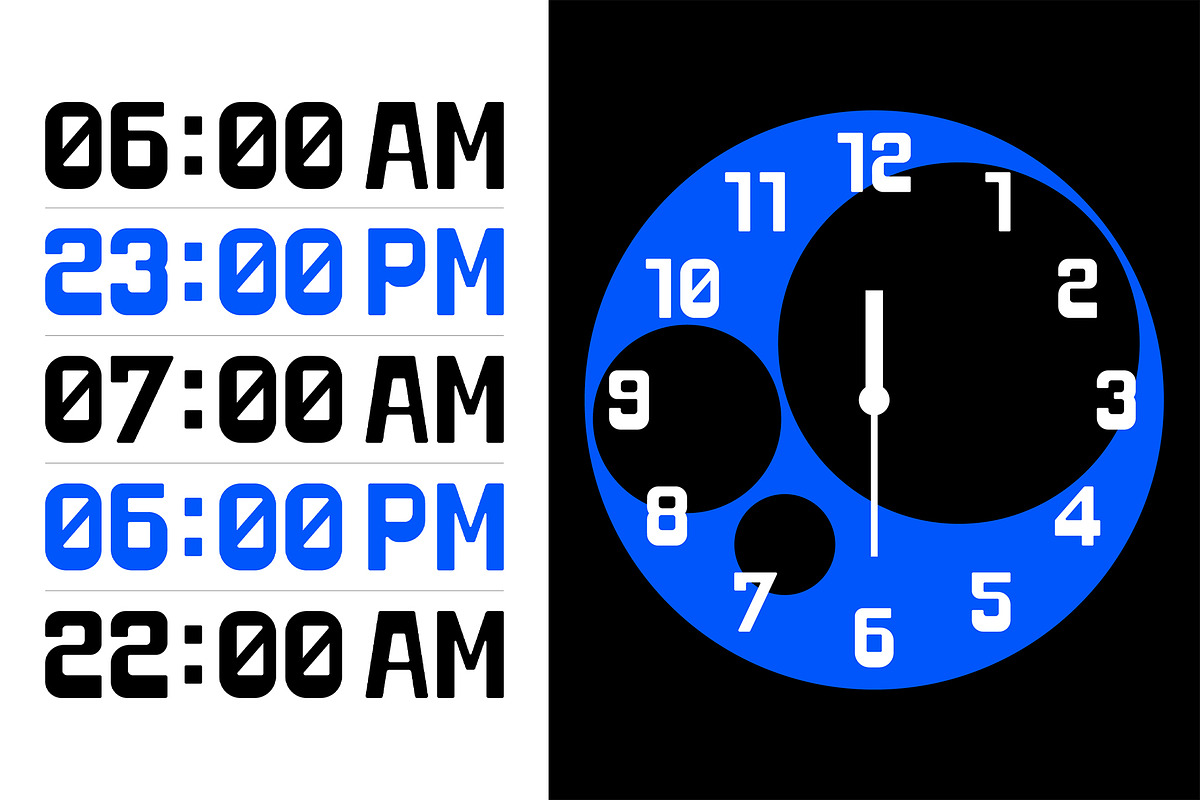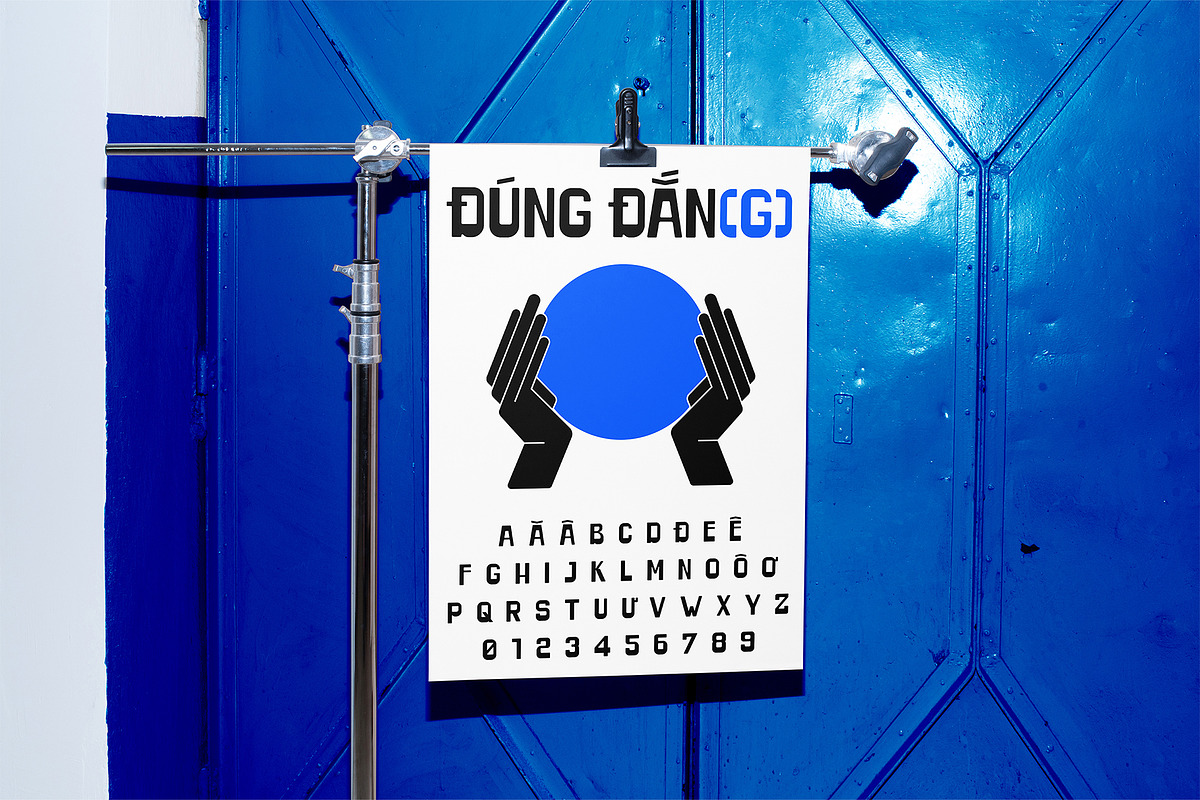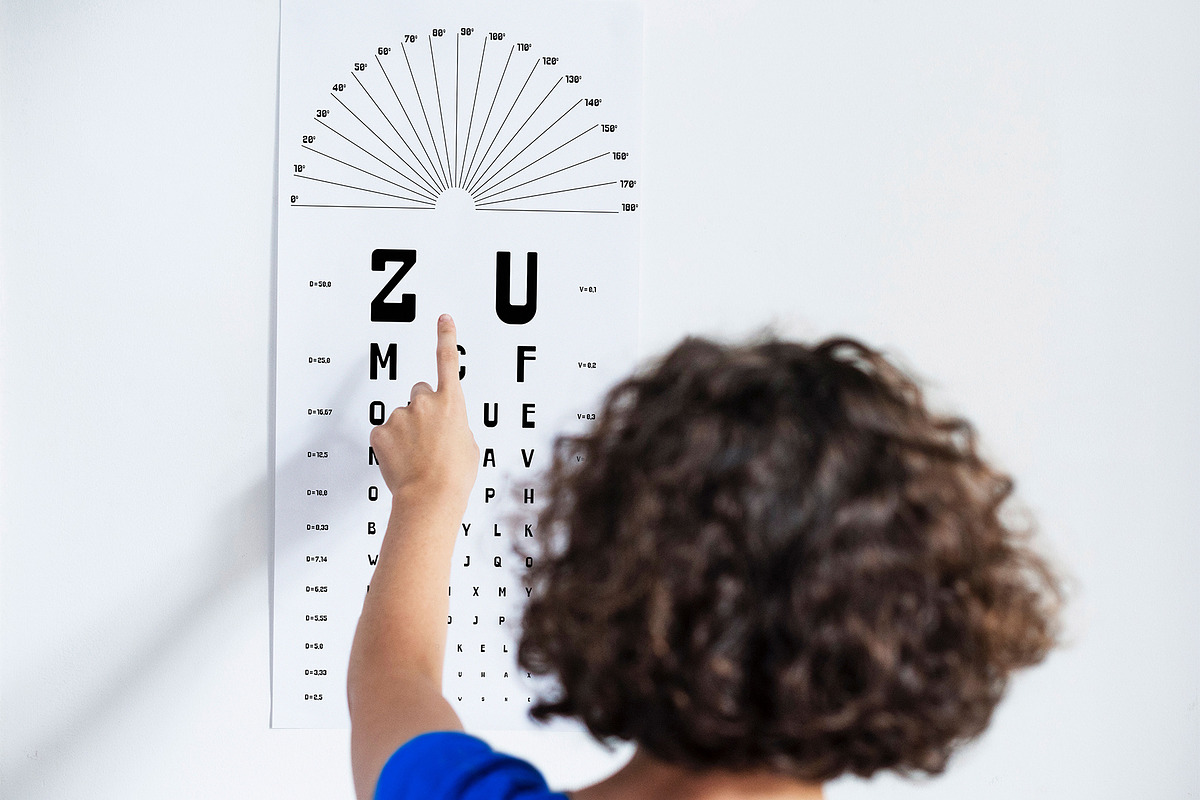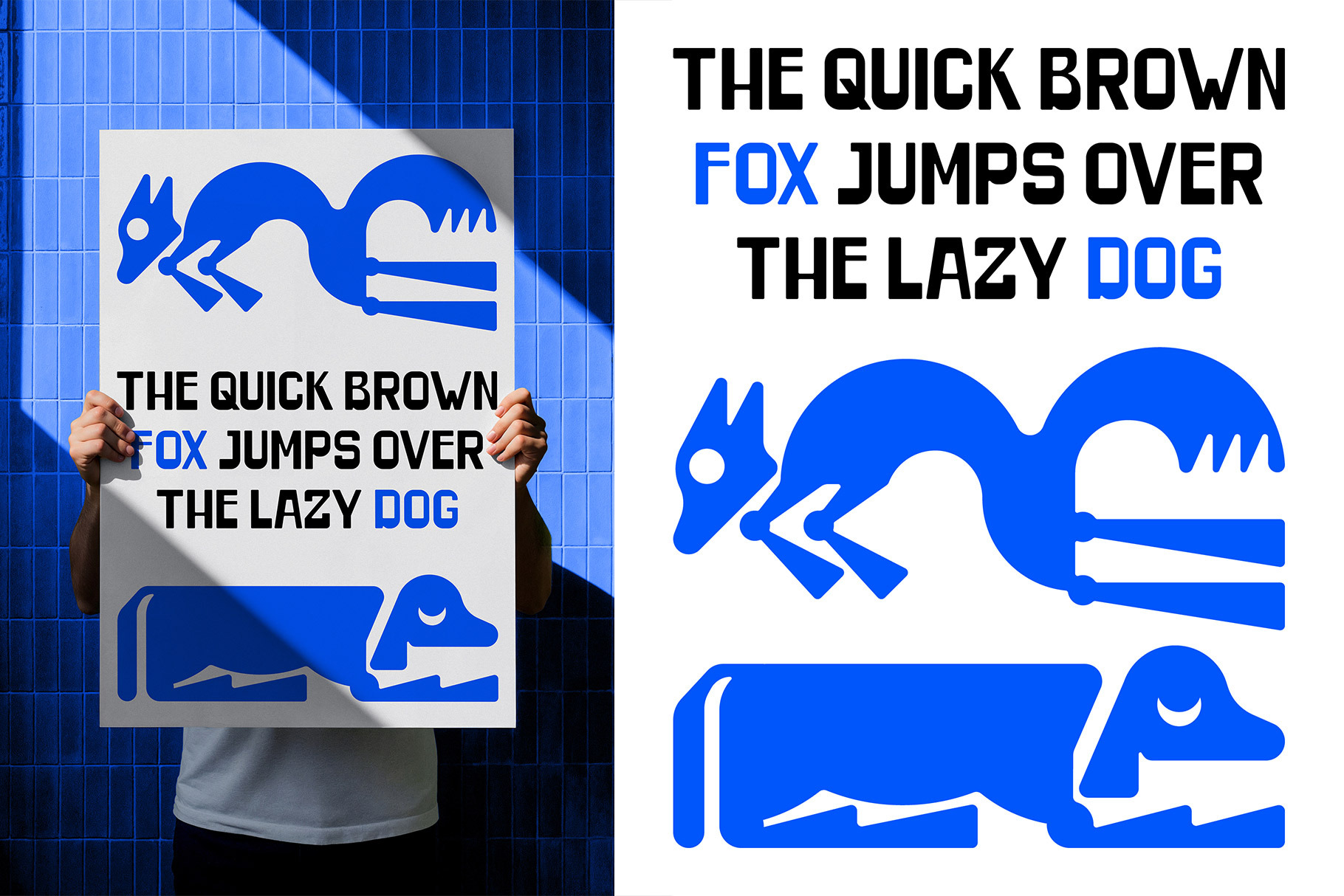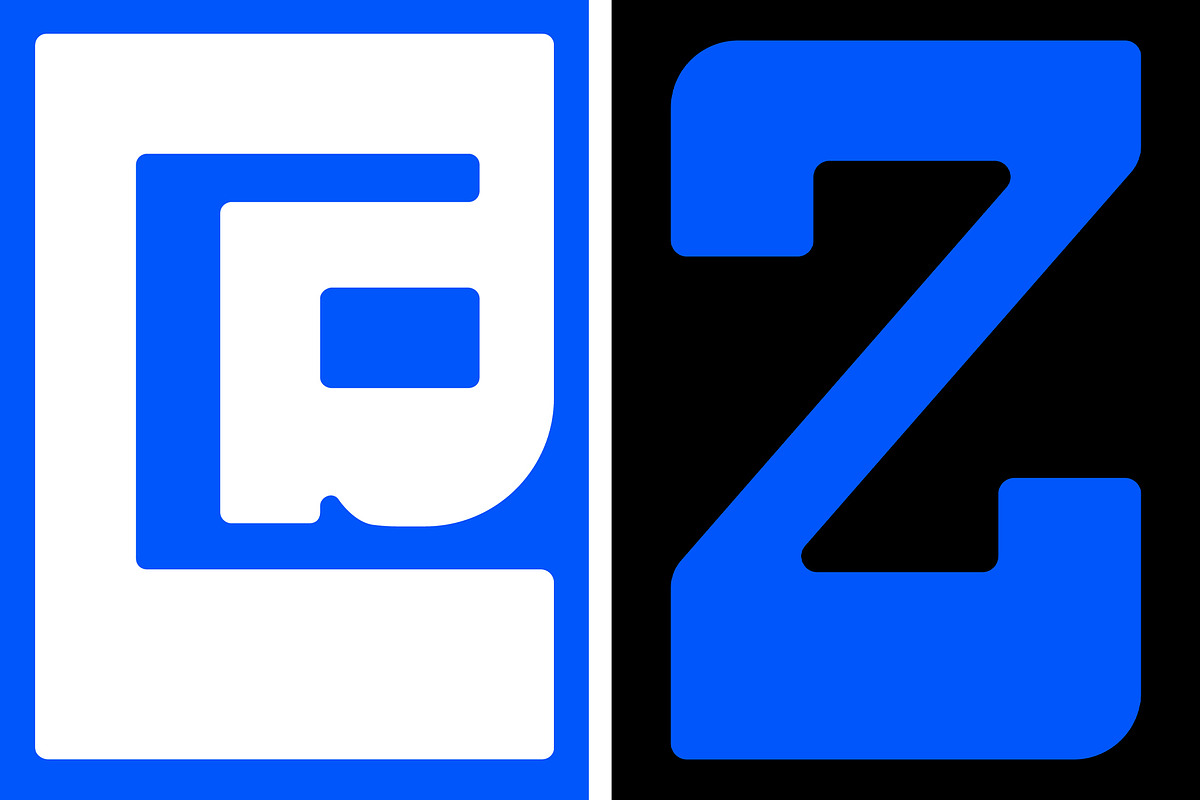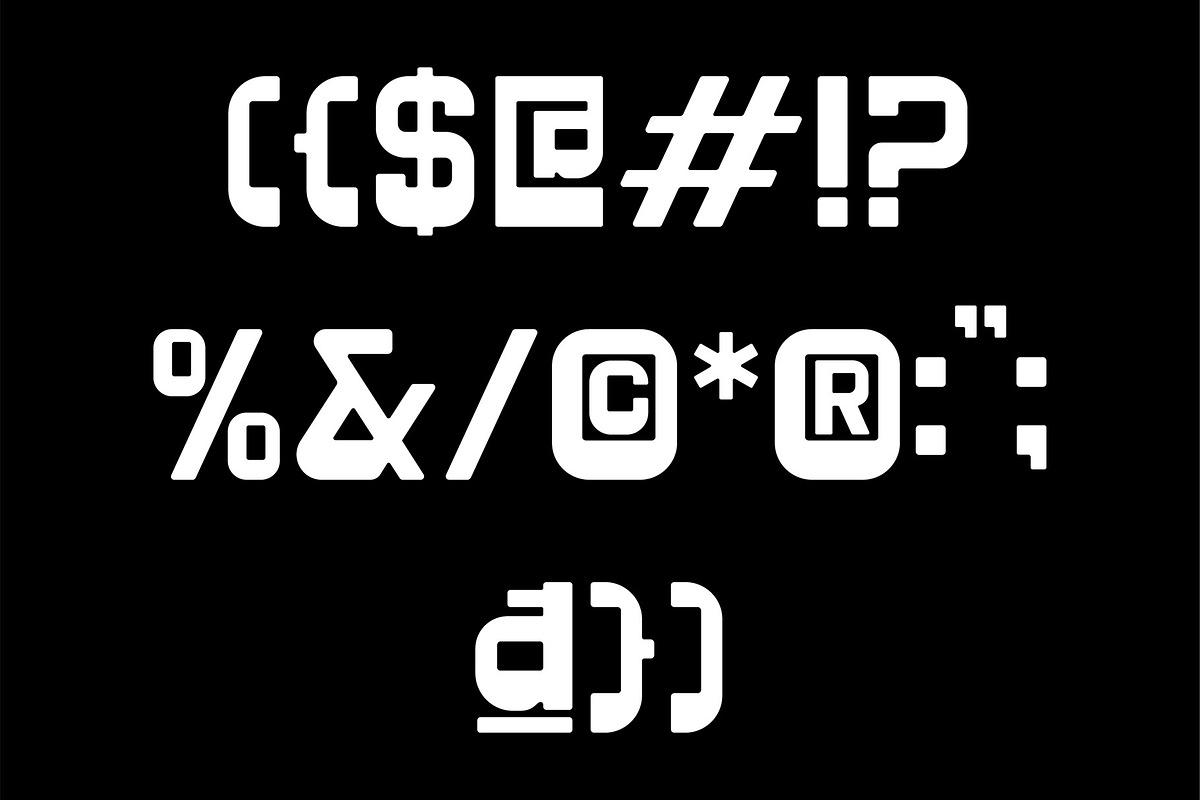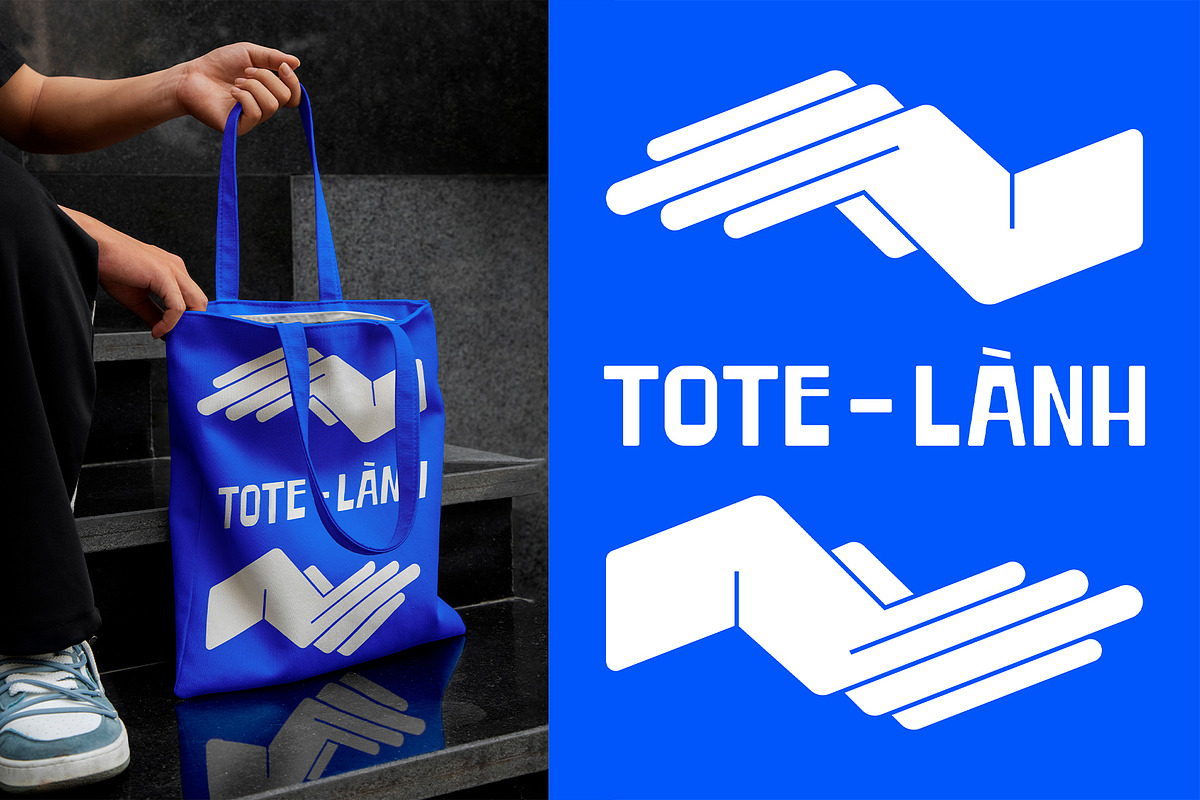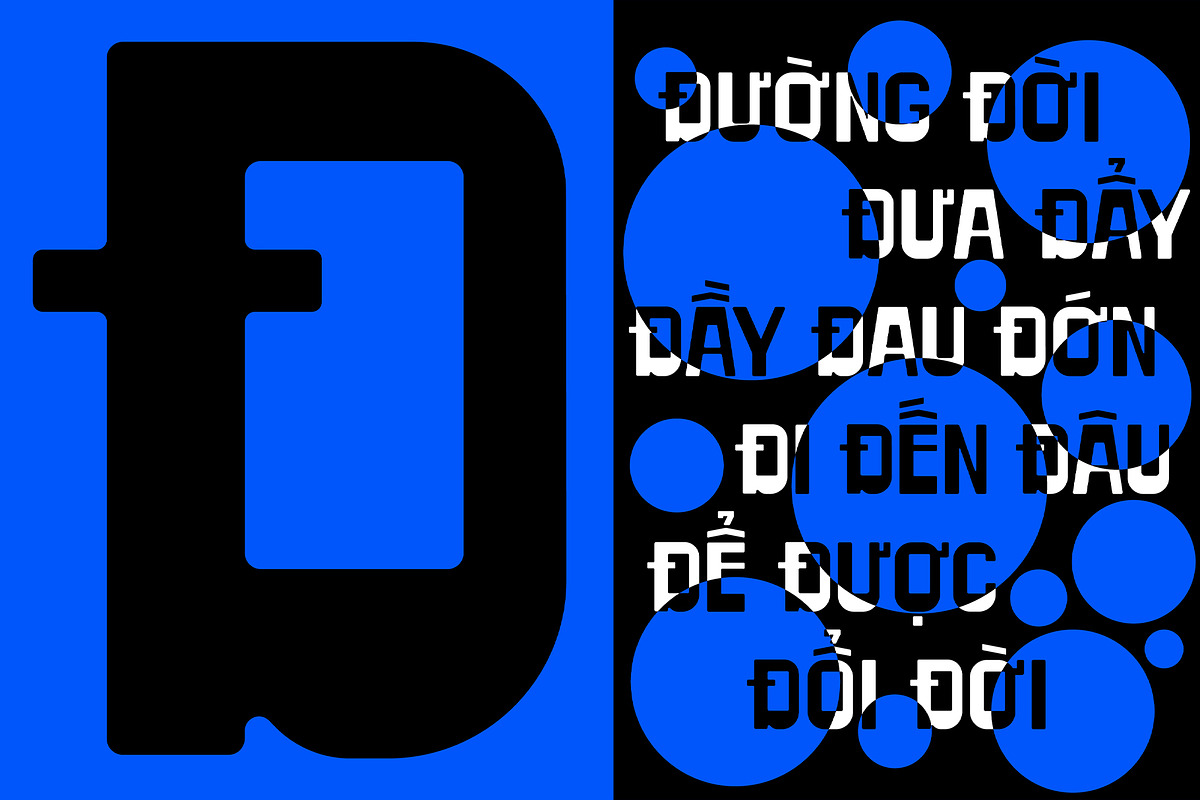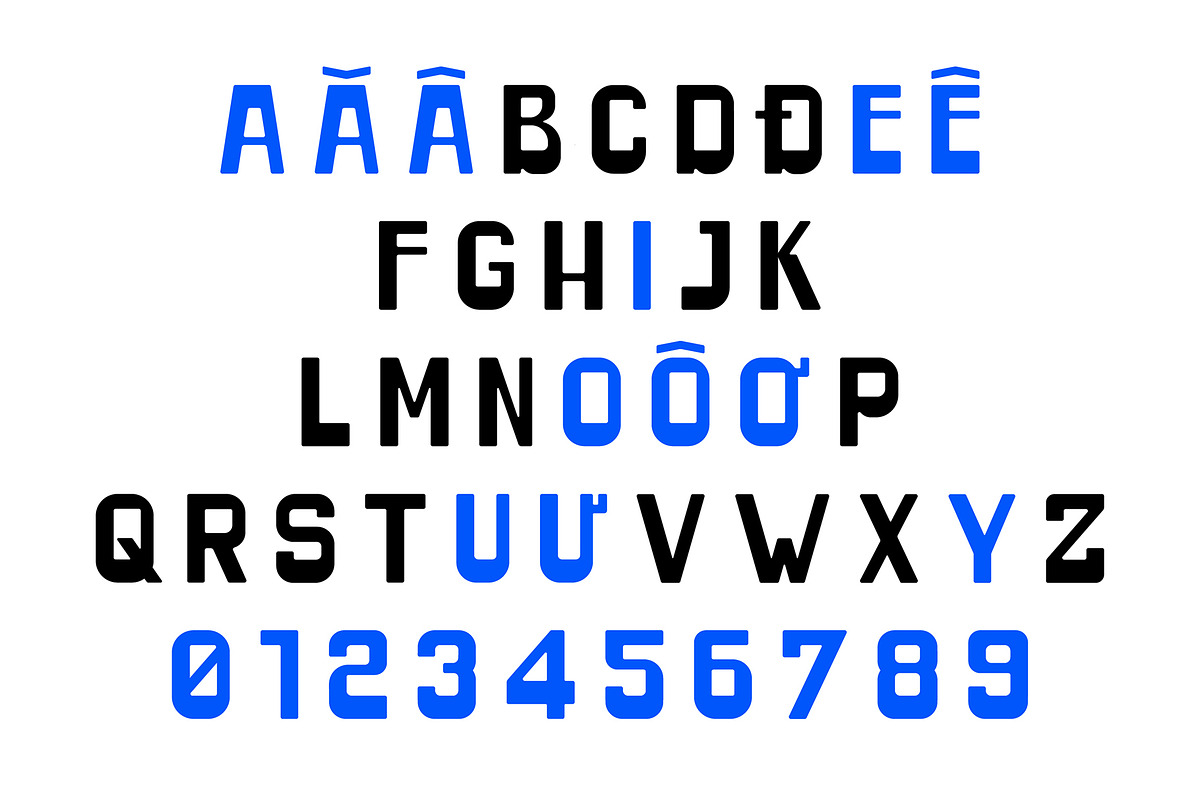
TRULY FONT / ĐÚNG ĐẮN(G) FONT
TRULY Font — Experimental Vietnamese Display Sans Serif Bold • Condensed • Geometric • Vietnamese Typography
TRULY is an experimental display typeface inspired by the visual character of Vietnamese typography.
Designed with a bold, condensed and geometric structure, TRULY combines a strong contemporary presence with playful details found in Vietnamese letterforms and diacritics. The distinctive treatment of accented characters gives the typeface a unique identity while keeping the overall system visually consistent.
Created to make words feel like graphic objects, TRULY works especially well for posters, editorial design, branding, headlines, campaigns, motion graphics, album covers and experimental typography.
From bold statements to expressive compositions, TRULY is made for designers who want a typeface that feels direct, unconventional and unmistakably visual.
• Experimental display sans serif • Bold and condensed letterforms • Vietnamese character support • Latin uppercase characters • Numbers and punctuation • Designed for large-scale typography and headlines • Great for posters, branding, editorial, fashion, music and motion design
TRULY is not designed to simply be read — it is designed to be seen.
Bring a distinctive Vietnamese typographic character to your next creative project with TRULY.